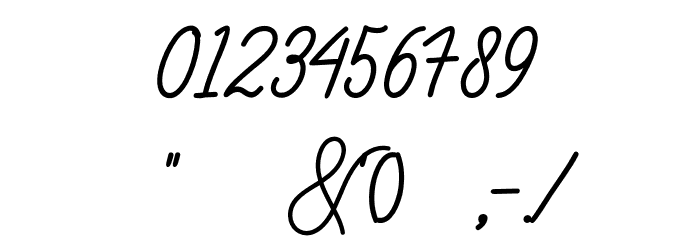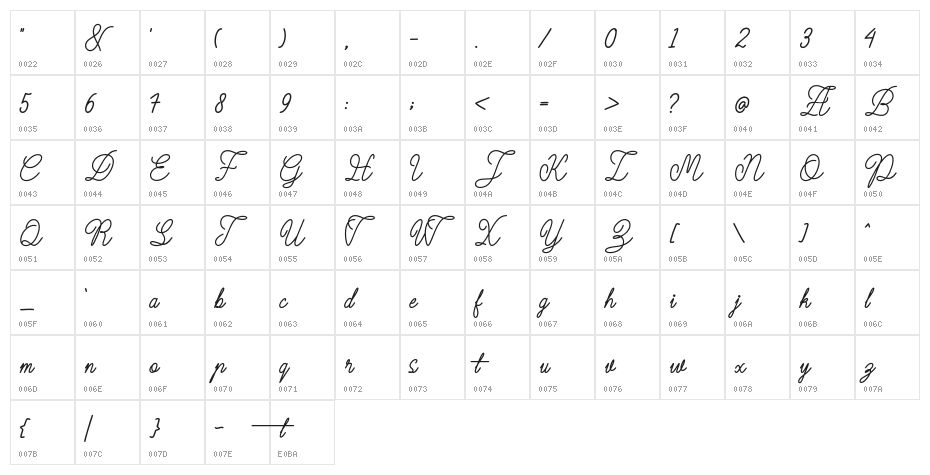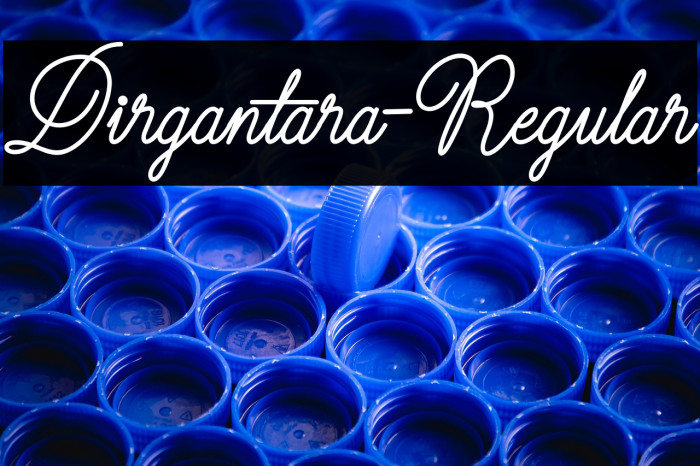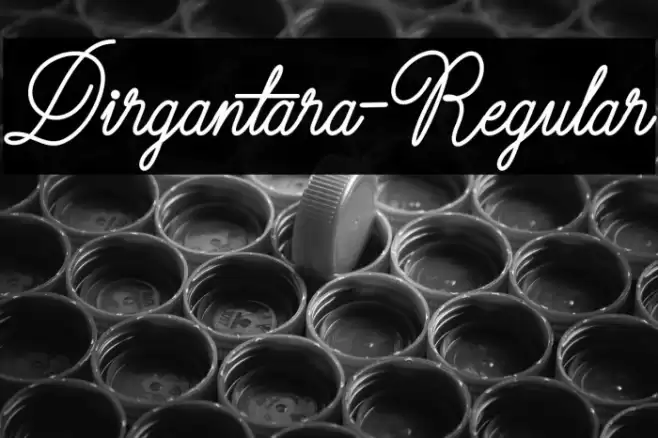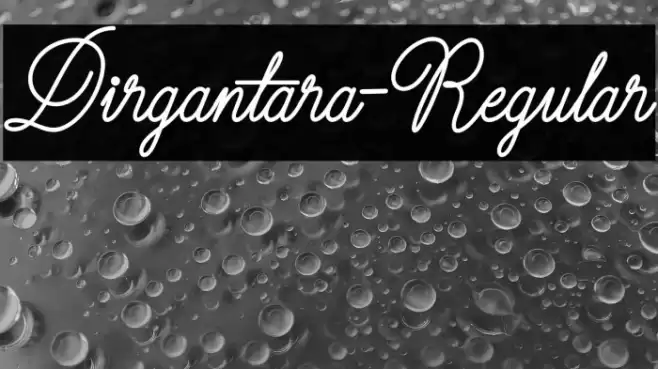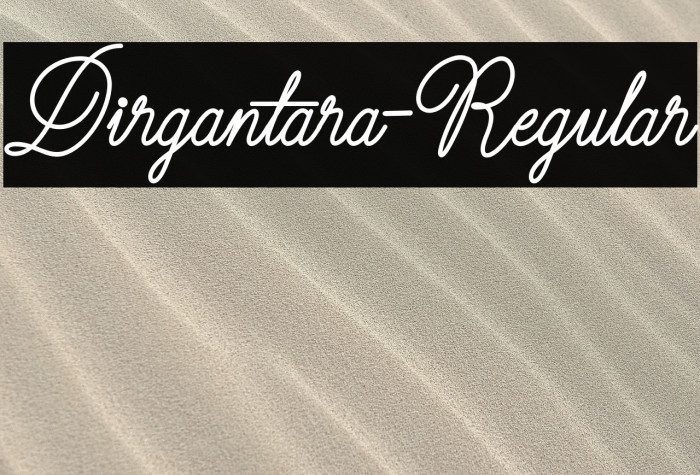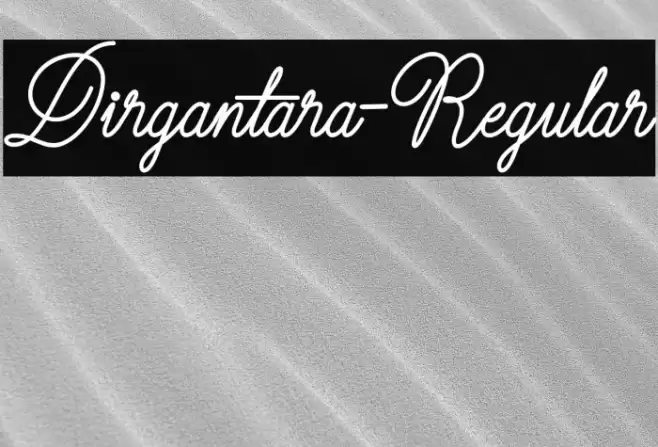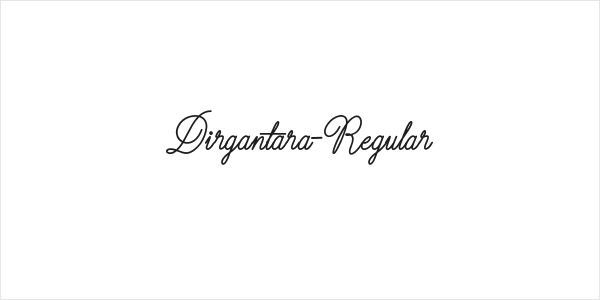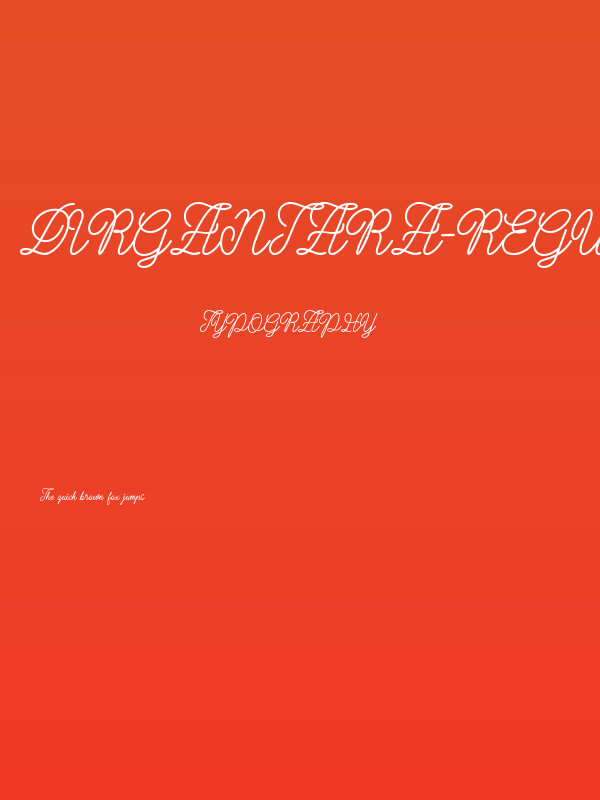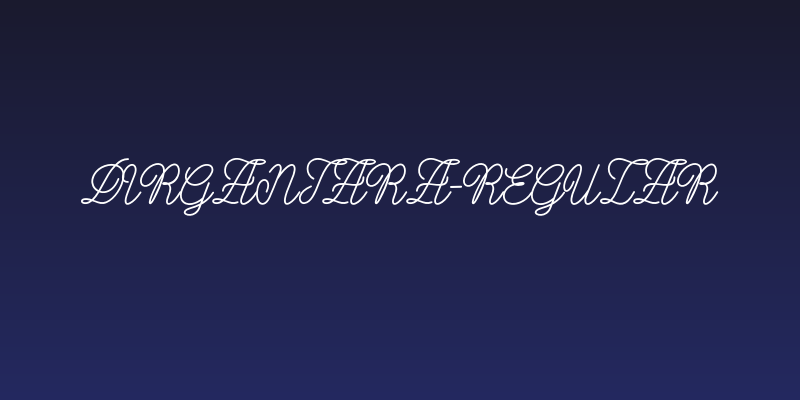
Dirgantara-Regular Font
Dirgantara-Regular Description
This font features a flowing, cursive style that mimics elegant handwriting. The characters are interconnected, creating a seamless and fluid appearance. The uppercase letters are ornate, with intricate loops and swirls, while the lowercase letters maintain a consistent, smooth flow. The numerals and special characters are designed to complement the overall script style, adding a touch of sophistication. This font is ideal for projects that require a personal, handwritten touch, such as invitations, greeting cards, and branding materials.